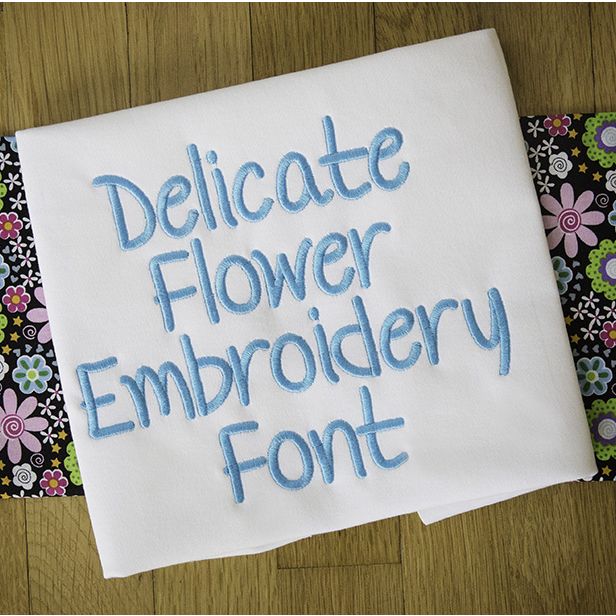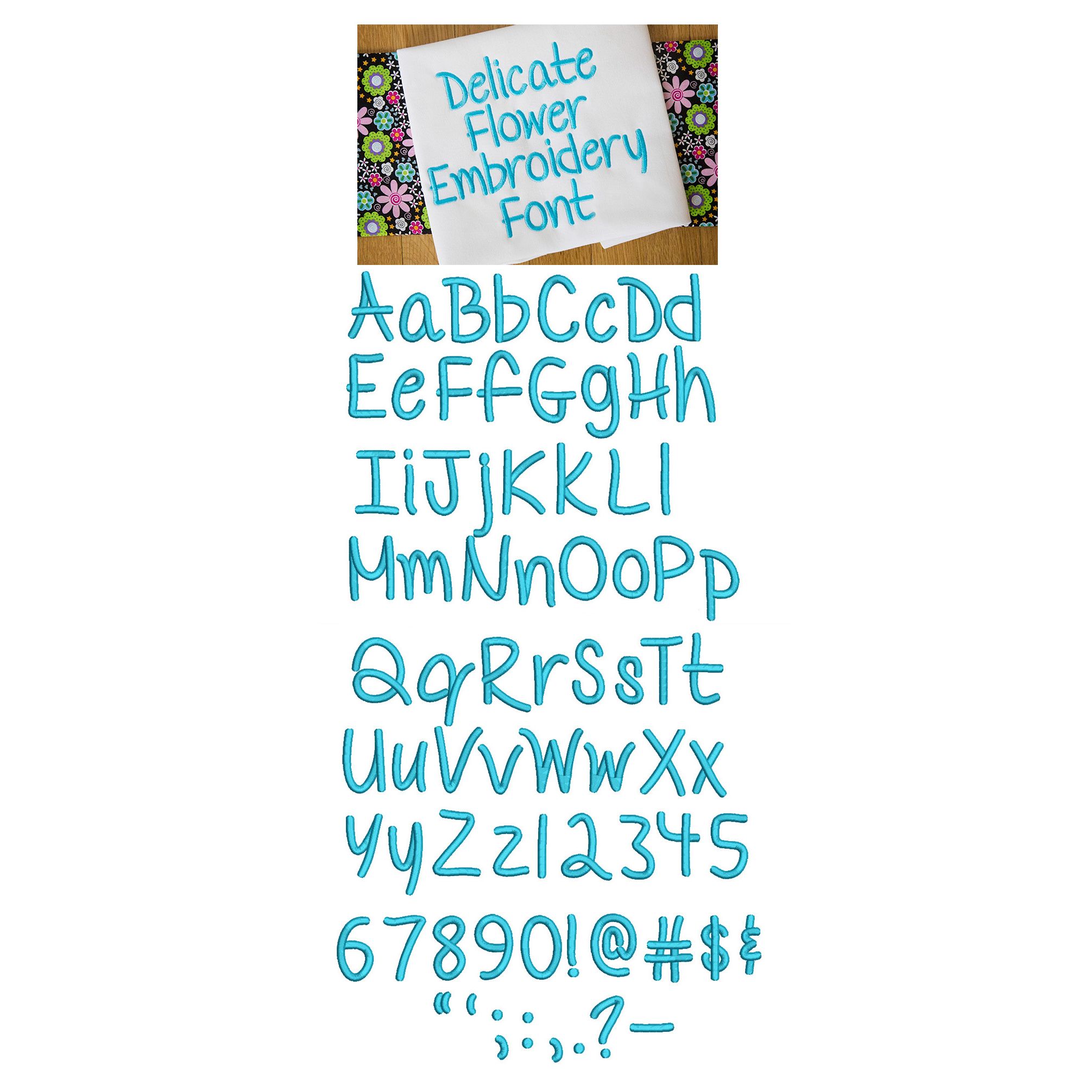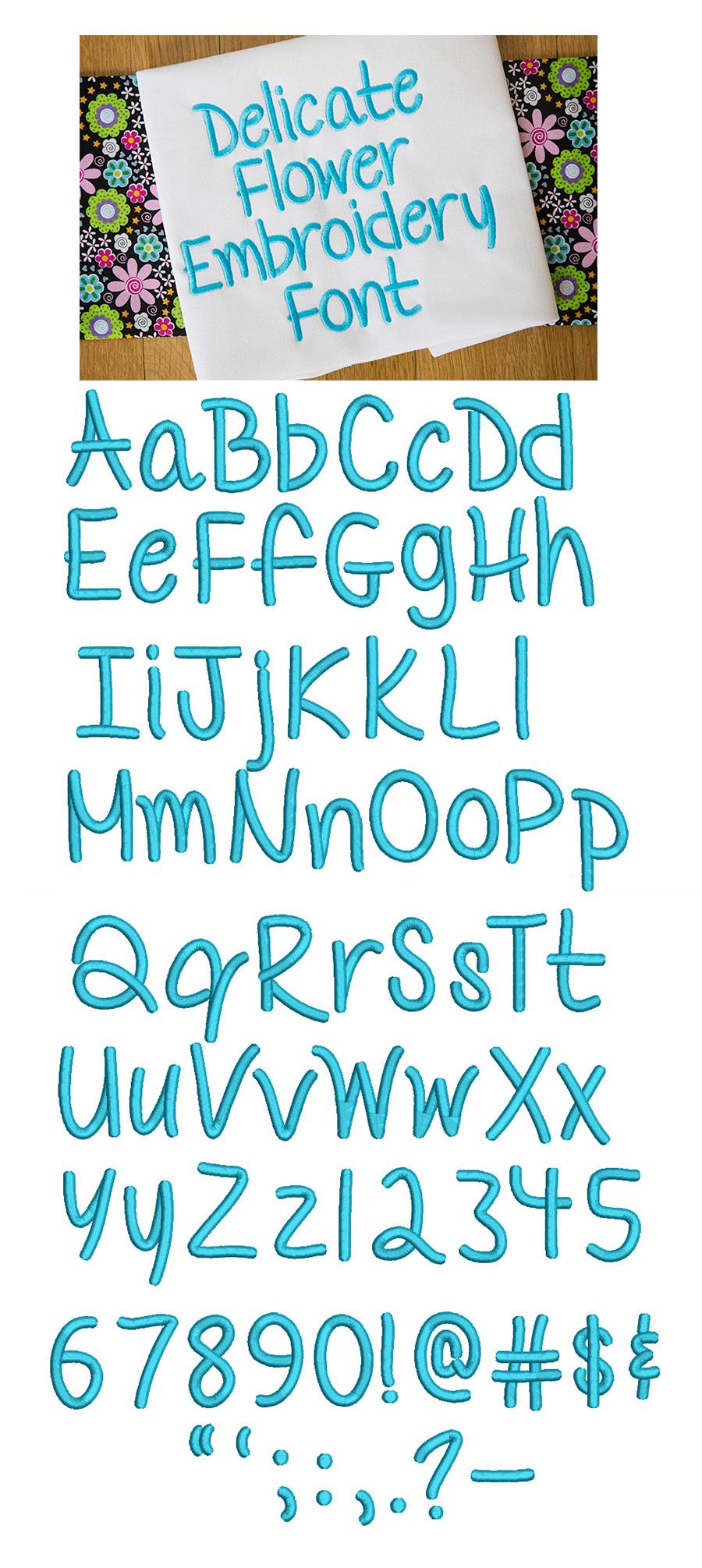
Delicate Flower Satin Stitch Embroidery Font
A pretty, chunky "print" font.  All of our font alphabets are 100% manually digitized to bring you maximum stitch quality.